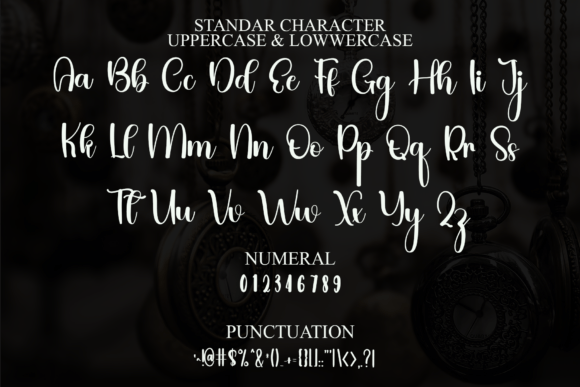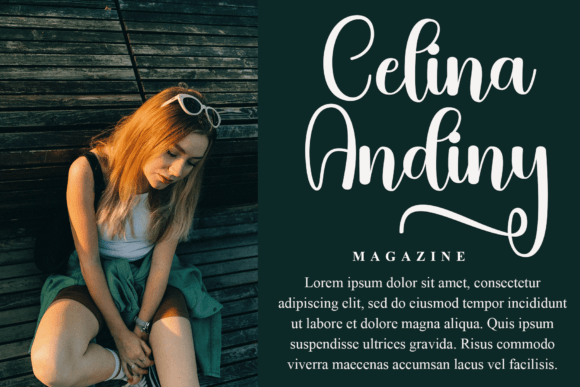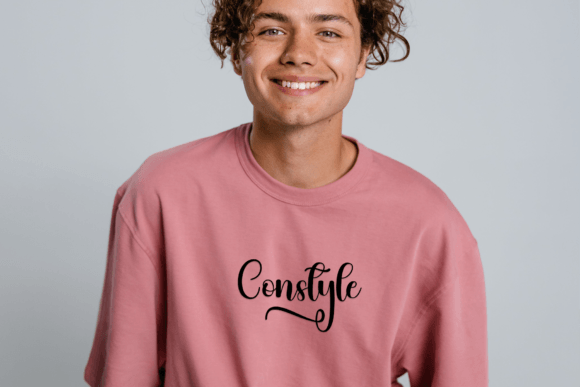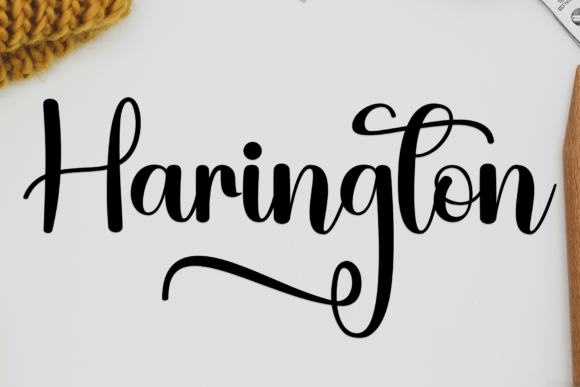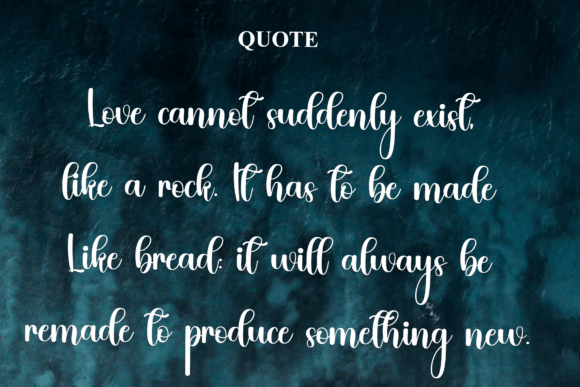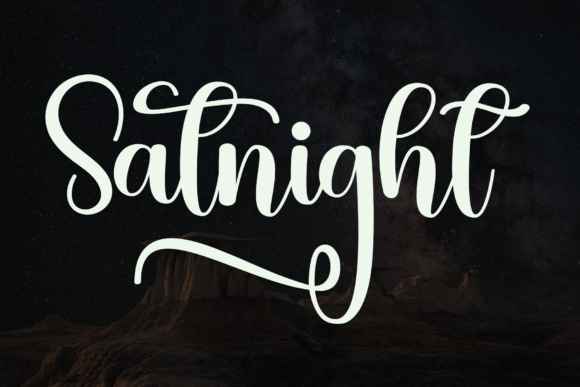
Introduction to Satuday Font
As a designer, have you ever stumbled upon that perfect font that makes your creative project pop? It’s the moment when all the elements come together, and your design goes from good to great. For me, that moment happened when I discovered the Satuday Font – a beautiful, refined handwritten font that exudes elegance and sophistication.
As we dive deeper into the world of Satuday Font, you’ll learn about its unique features, including PUA encoding, which allows for seamless access to its amazing glyphs and ligatures. Get ready to elevate your designs with this stunning font and discover why it’s a must-have for any creative project.
Key Features of Satuday Font
- Comes in 7 font styles, offering versatility for different design needs
- Designed to be highly legible and visually appealing in various sizes
Honest Review: Satuday Font
- Satuday Font’s unique style and aesthetic make it a great addition to any creative project.
- The font is well-designed and suitable for various applications, from print to digital media.
Tips for Getting the Most Out of Satuday Font
Satuday Font is a versatile design resource that can be used in a variety of creative projects, including logos, business cards, and social media graphics. It’s also a great choice for presentations, documents, and websites that require a high-quality and modern font.